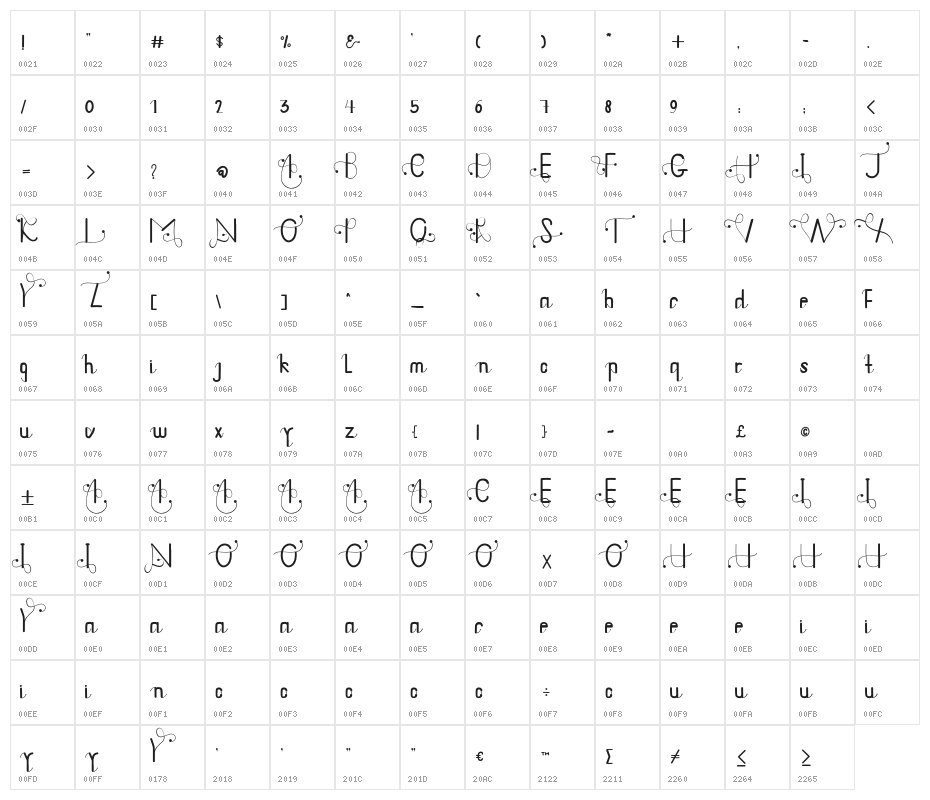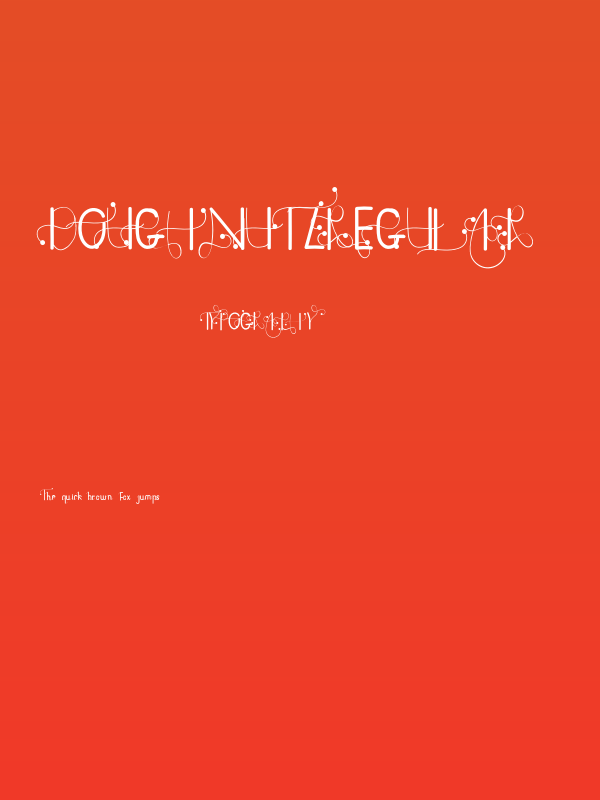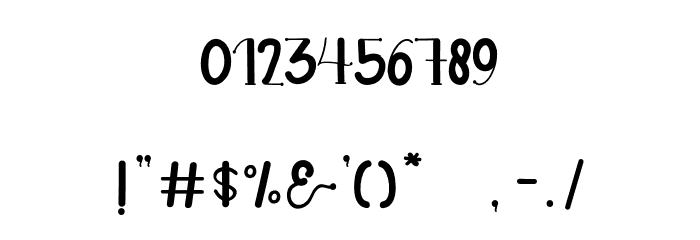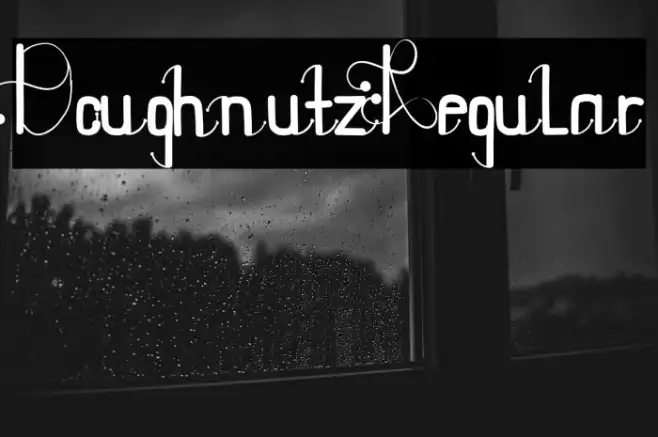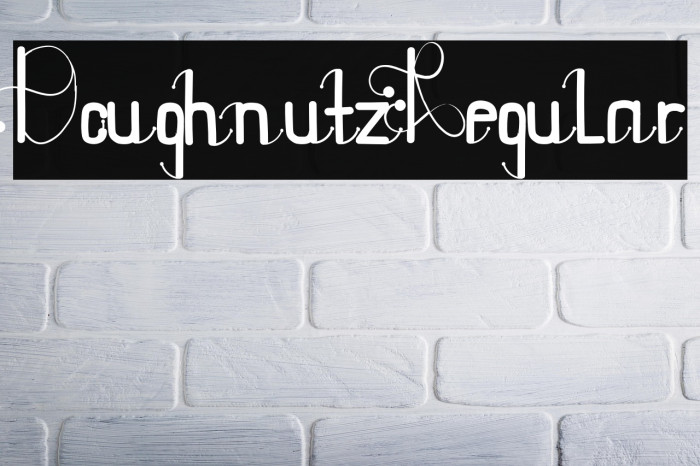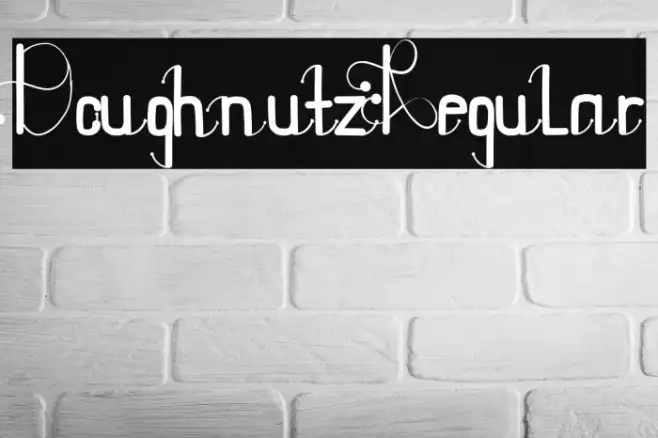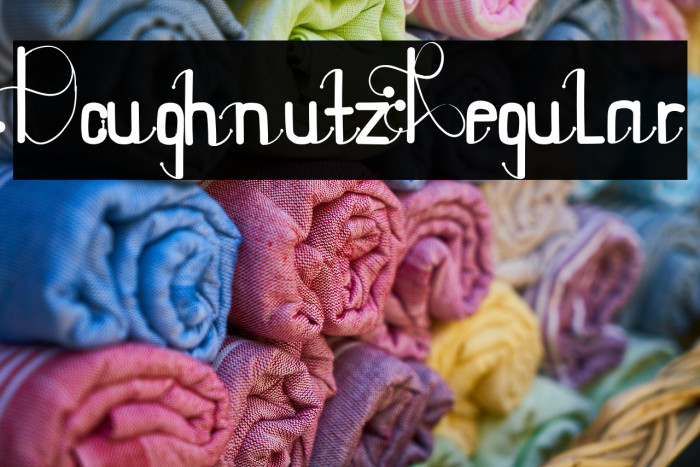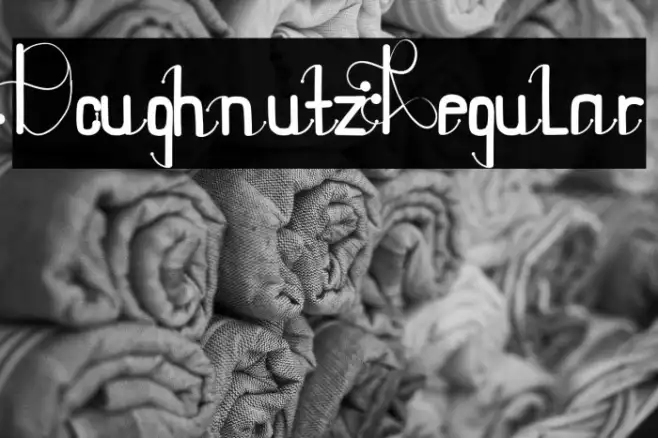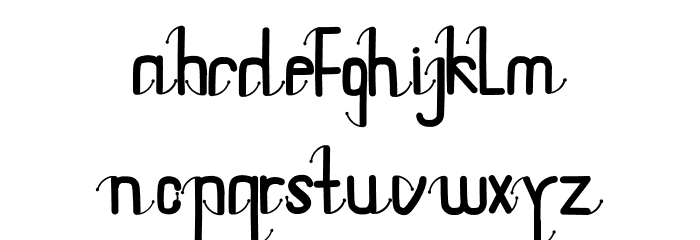
DoughnutzRegular Font
DoughnutzRegular Description
This font features an elaborate and decorative style with intricate swirls and loops extending from the characters, giving it a whimsical and artistic flair. The uppercase letters are particularly ornate, with flourishes that add a sense of elegance and movement. The lowercase letters maintain a more restrained design but still carry the decorative theme. The numerals and special characters are consistent with the overall style, offering a cohesive look. This font is ideal for creative projects where a touch of sophistication and playfulness is desired.